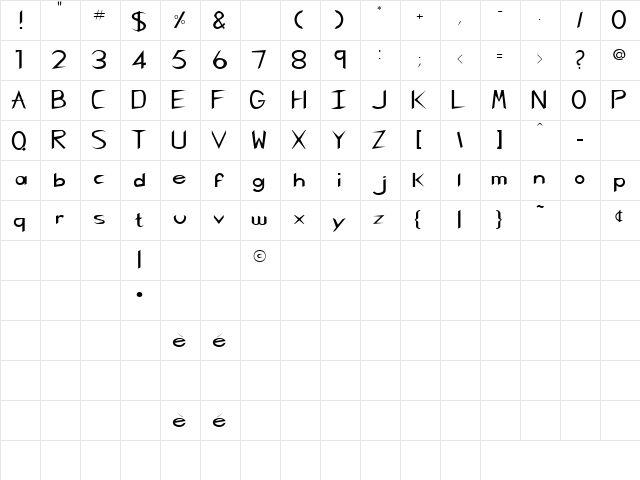
CharlieChan Normal
Design Context for CharlieChan Typeface
CharlieChan offers clean, dependable letterforms without strong stylistic allegiance, making it a practical choice for designers who need flexibility.